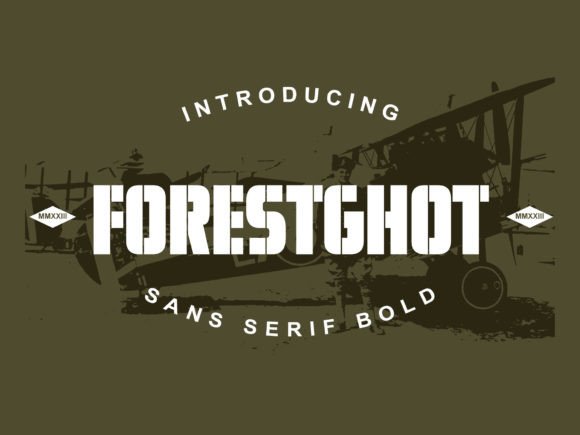
Looking for the perfect font for your next project? Look no further than Forestghot, the best font for tiny legal type! Created by artnivora.std, this simple and unique sans serif font is the perfect choice for anyone who needs a high-quality typeface.
Whether you're designing a logo, putting together a magazine, creating content for social media, or designing a brochure, Forestghot has everything you need to make your project stand out from the crowd. With its clean, modern lines and subtle curves, this font is sure to capture the attention of anyone who sees it.
But what sets Forestghot apart from other fonts on the market? For starters, it's incredibly versatile. Whether you're working on a print or digital project, this font is sure to look great. Plus, it's highly readable, making it the perfect choice for small or large blocks of text.
But perhaps most importantly, Forestghot is designed to evoke a sense of calm and tranquility. Its simple, understated design is perfect for projects that need to convey a sense of professionalism and reliability. And with its elegant curves and clean lines, it's sure to make your project look polished and sophisticated.
So if you're looking for the perfect font for your next project, look no further than Forestghot. With its unique style, versatility, and readability, it's sure to take your work to the next level.